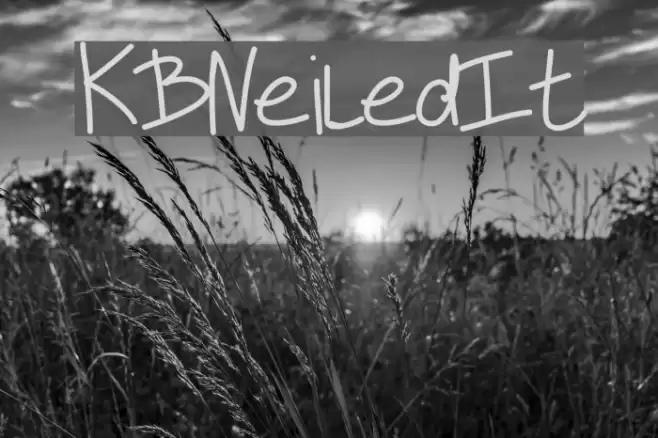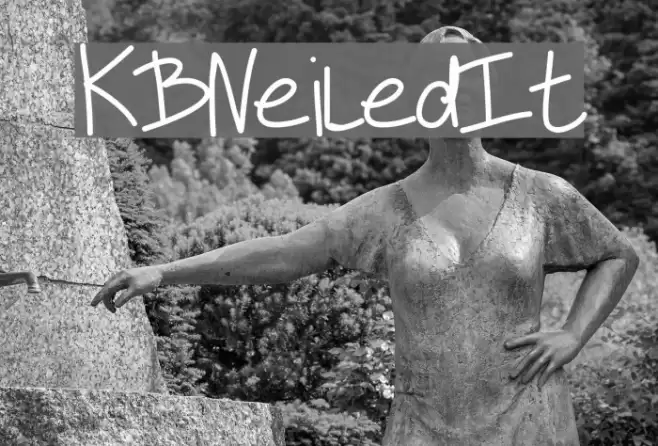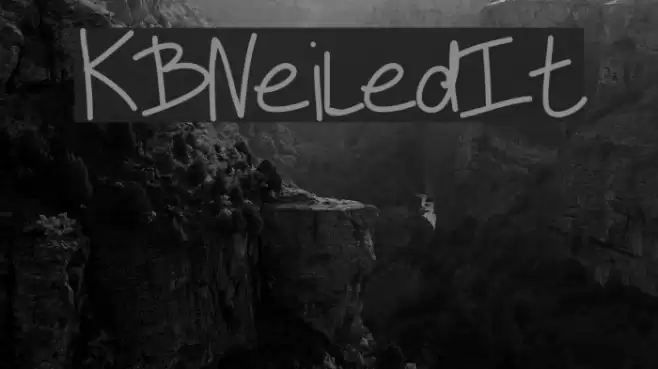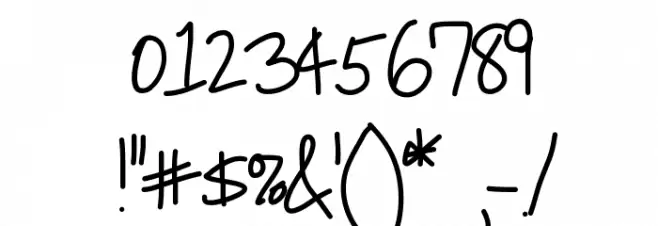
KBNeiledIt Font
KBNeiledIt Description
This font features a playful and casual handwritten style, characterized by its irregular and slightly slanted letterforms. The strokes are uneven, giving it a natural and informal appearance, reminiscent of a quick note or doodle. The uppercase and lowercase letters maintain a consistent flow, while the numerals and special characters complement the overall aesthetic with their quirky and spontaneous design. This font exudes a sense of creativity and personal touch, making it ideal for projects that require a friendly and approachable tone.
A playful, casual handwritten font with irregular, slanted strokes from Uncategorized fonts.
- Proposed Projects: Ideal for greeting cards, personal notes, informal invitations, and creative branding.
- Overall Style: Casual, Playful
- Use Case: Logos, Informal text, Creative projects